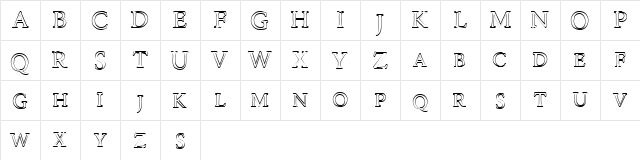
Road Race Free Outline
| Style | Outline |
| Foundry | Craft Supply Co |
Design Context for Road Race Free Typeface
Road Race Free is built around its visual character rather than neutral utility — its distinctive forms are designed to make an impression at display sizes.
Font Pairing: Pair with a clean neutral sans-serif for body copy to let Road Race Free's character lead without overwhelming the composition.
Pro Tip: Use Road Race Free exclusively at display sizes — it was designed to be seen, not read at length. Let a neutral companion handle body copy.